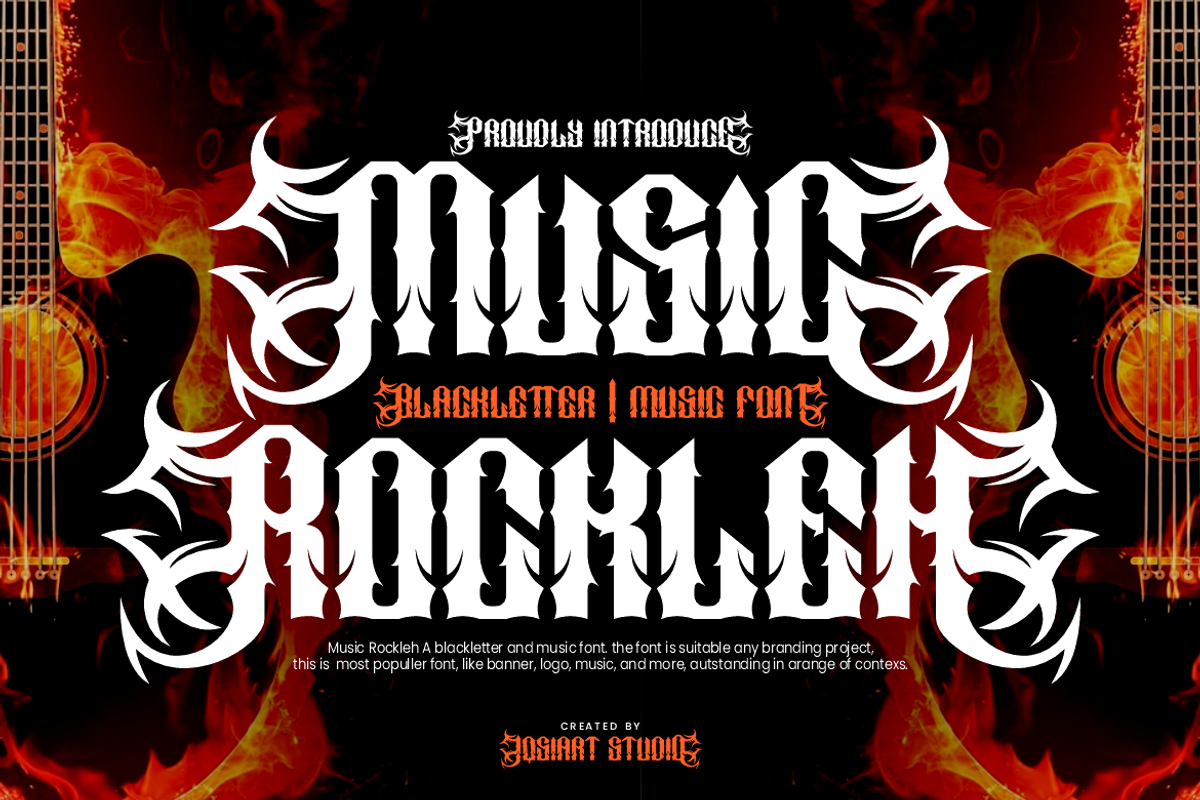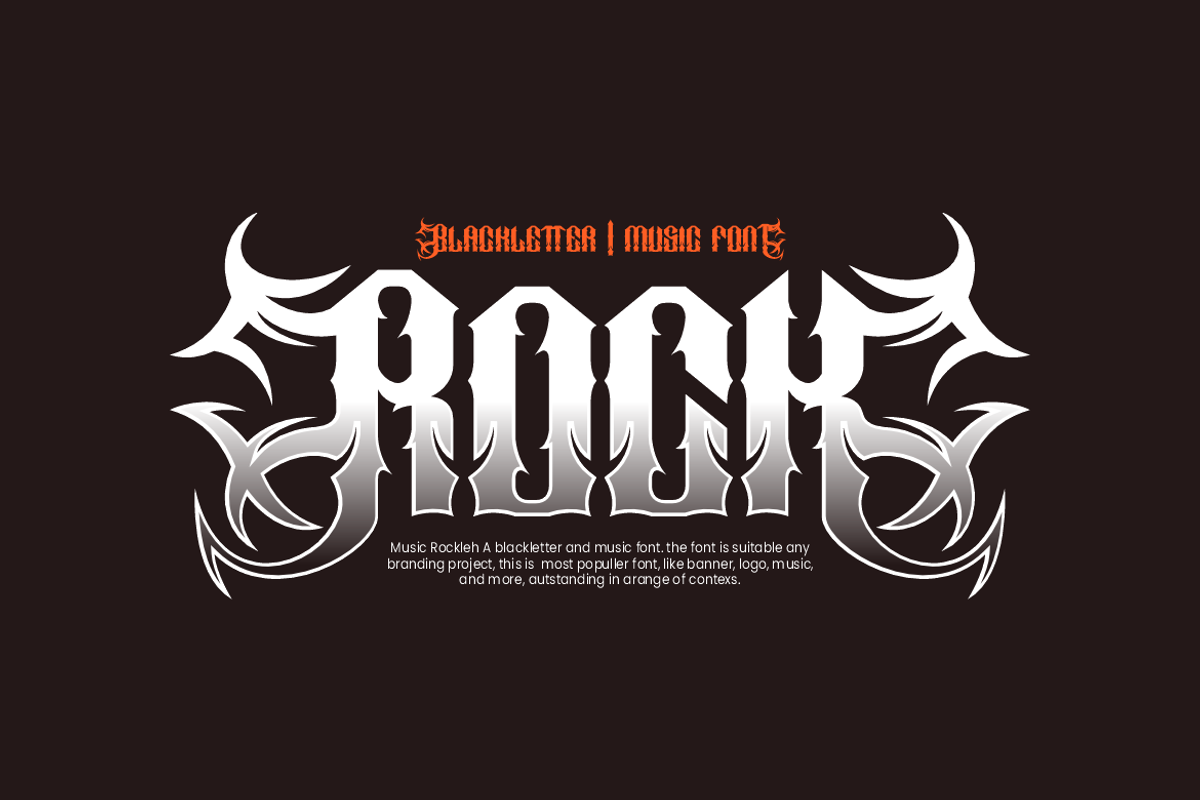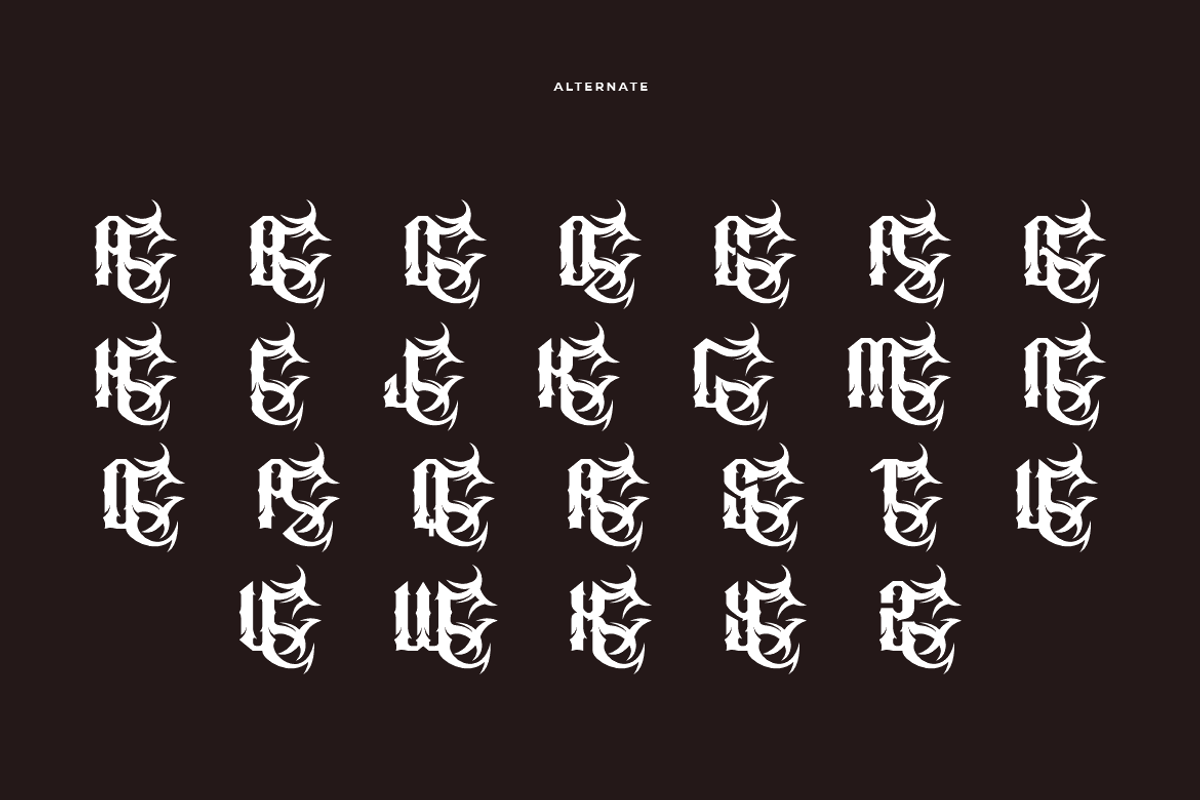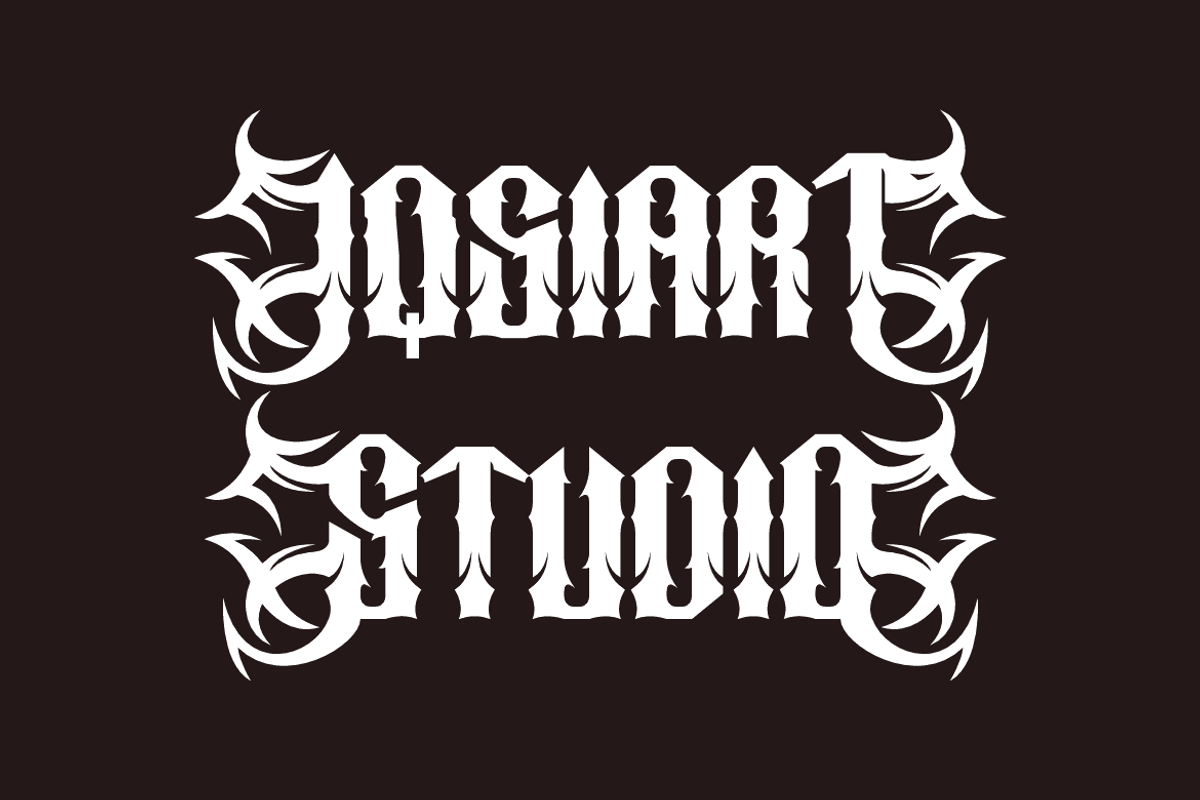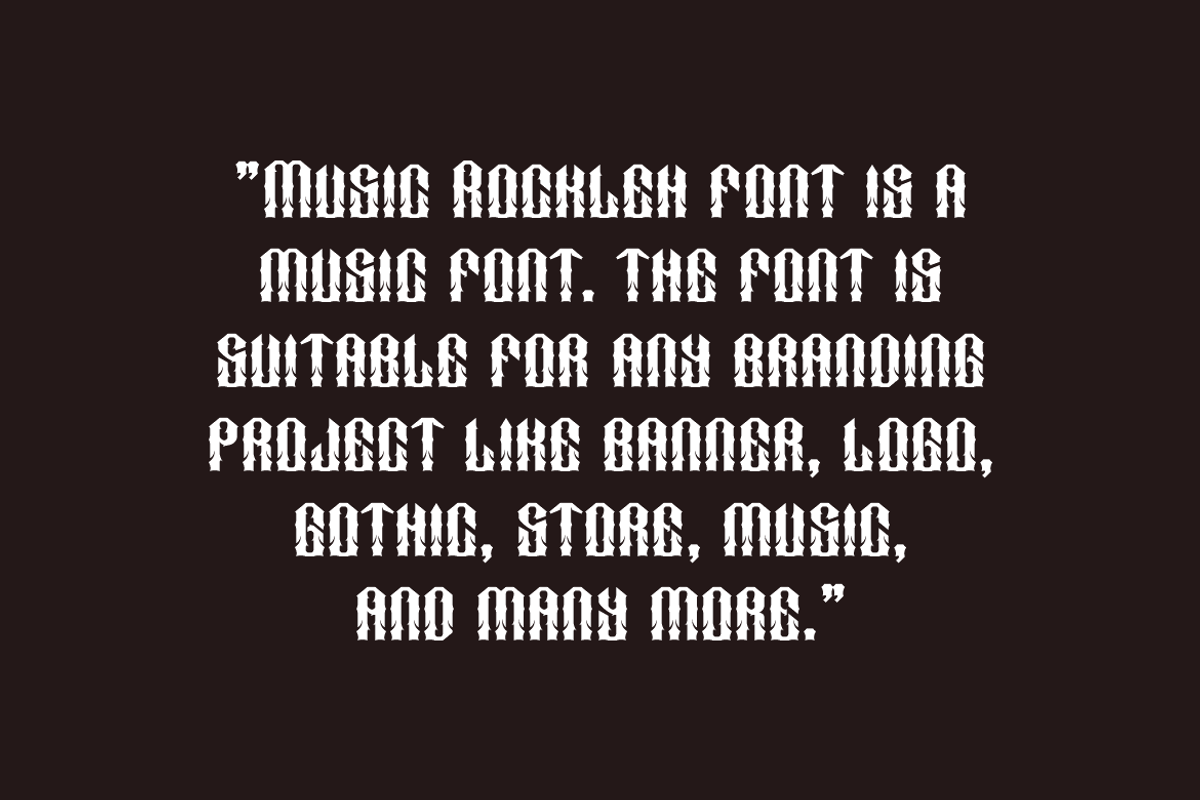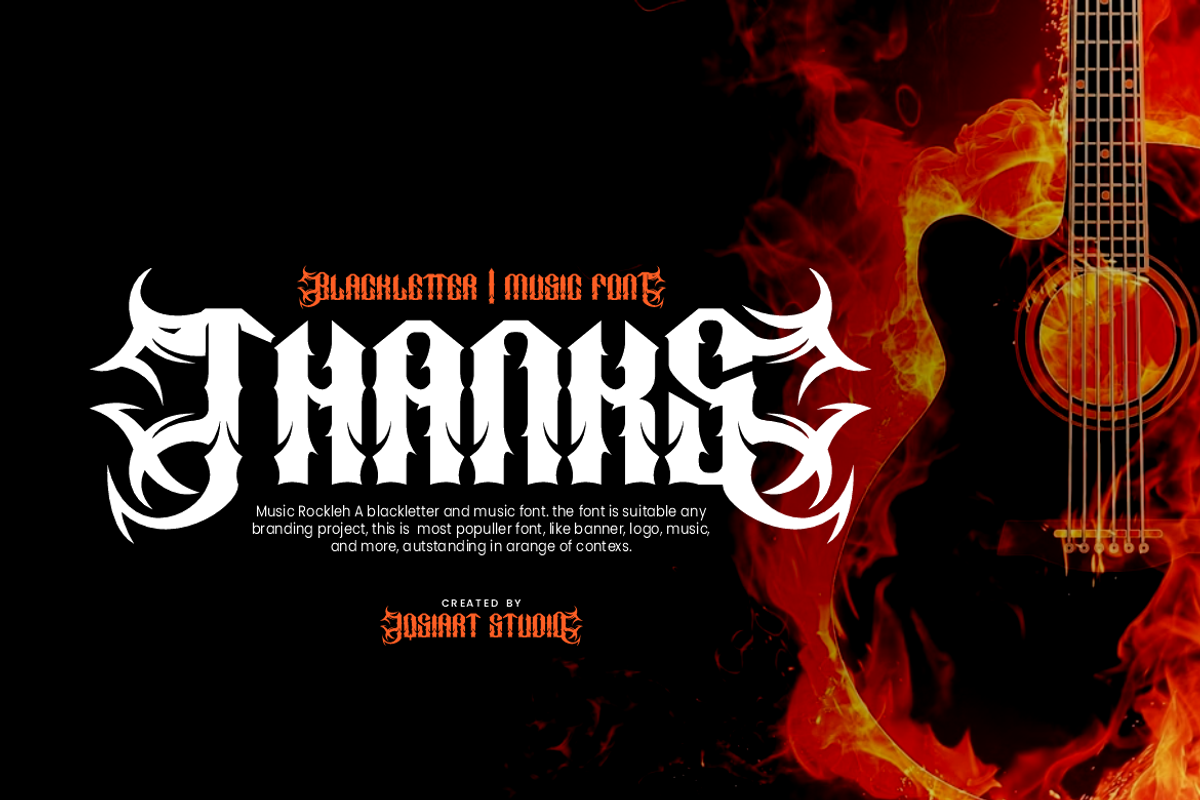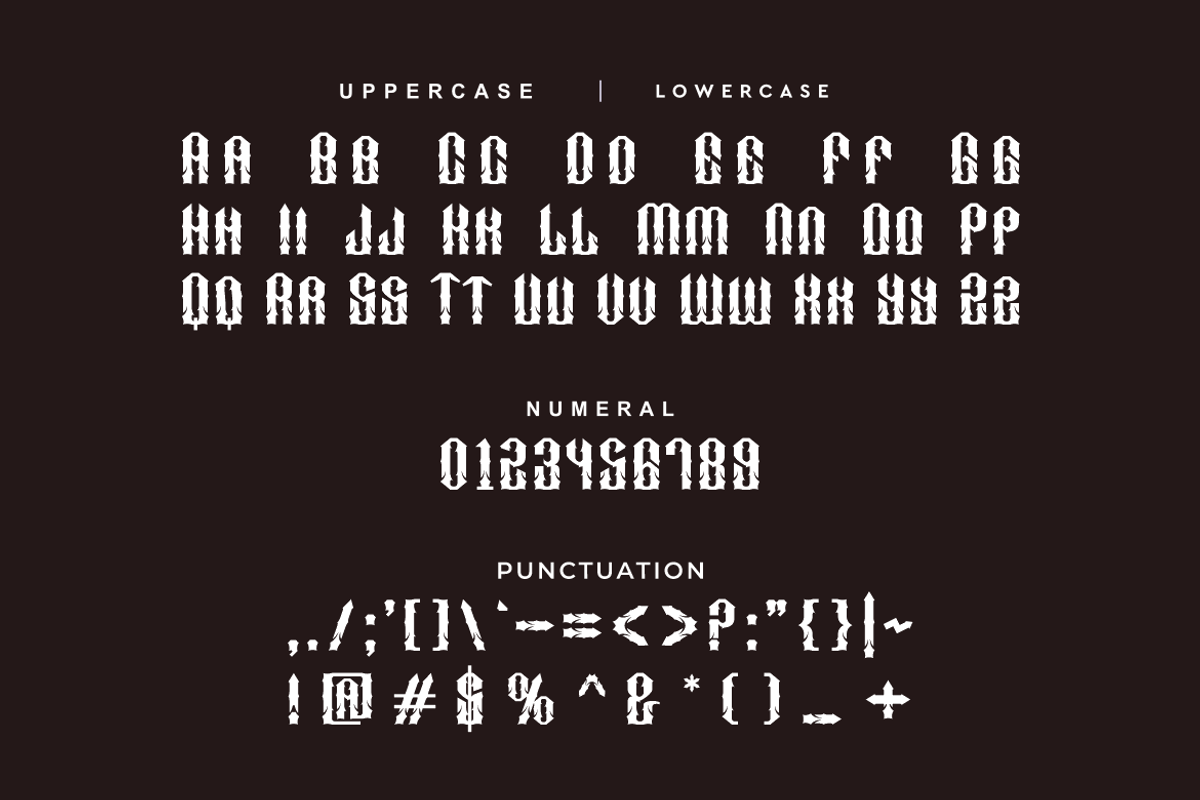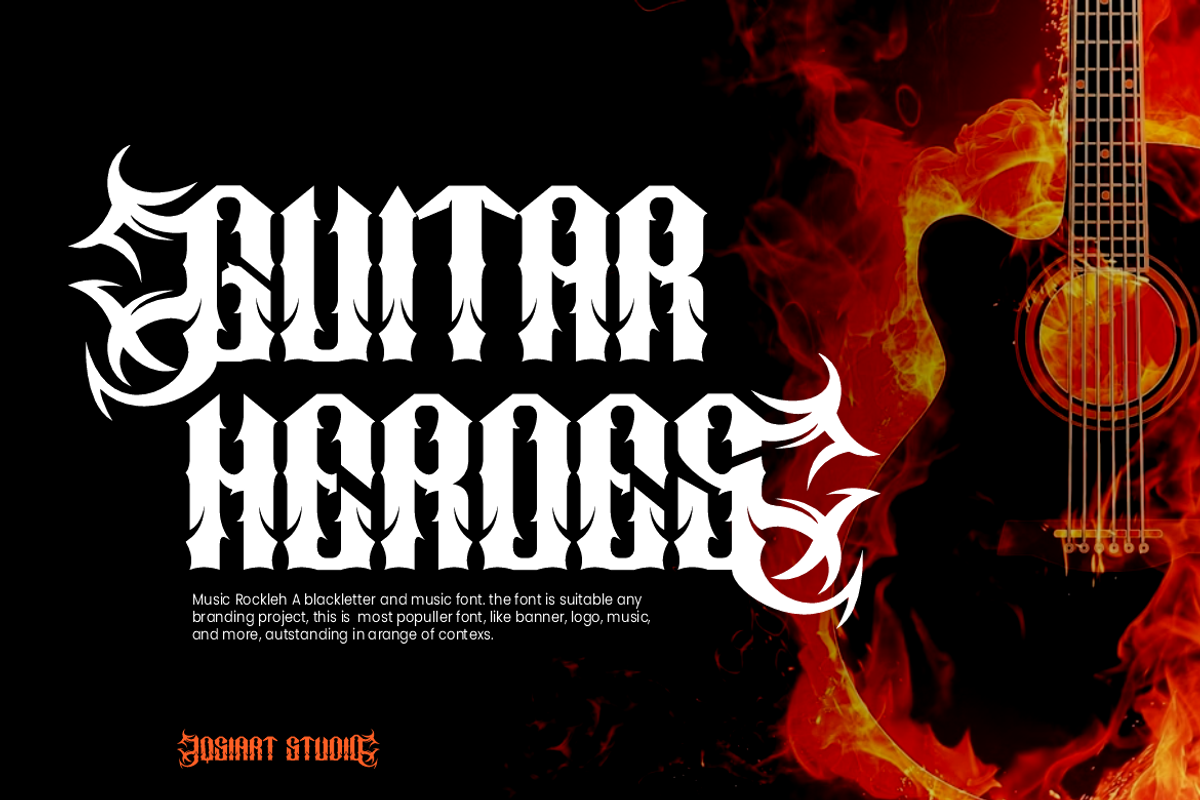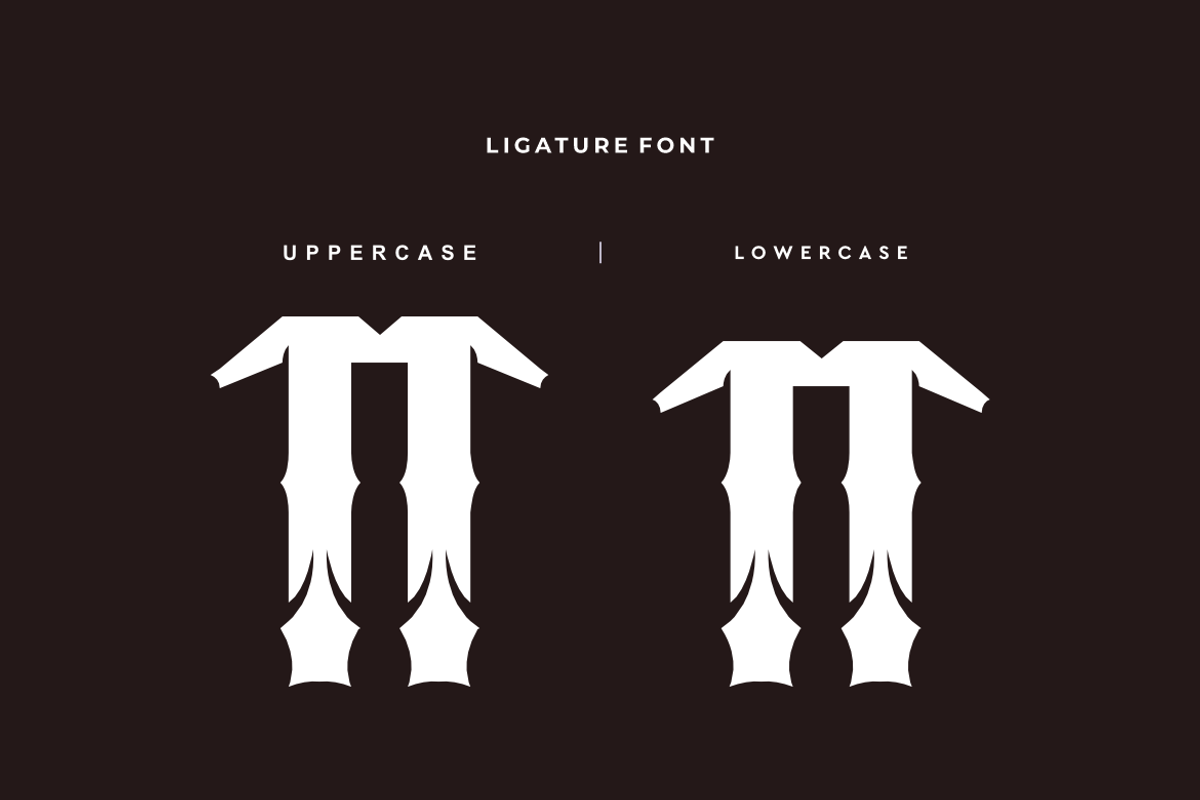
Music Rockleh - Music Font
Music Rockleh Font is a best and authentic display font. This font can be used for your various needs. We provide various themes and font styles. visit our profile to get a wide variety of themes and different font styles you need.